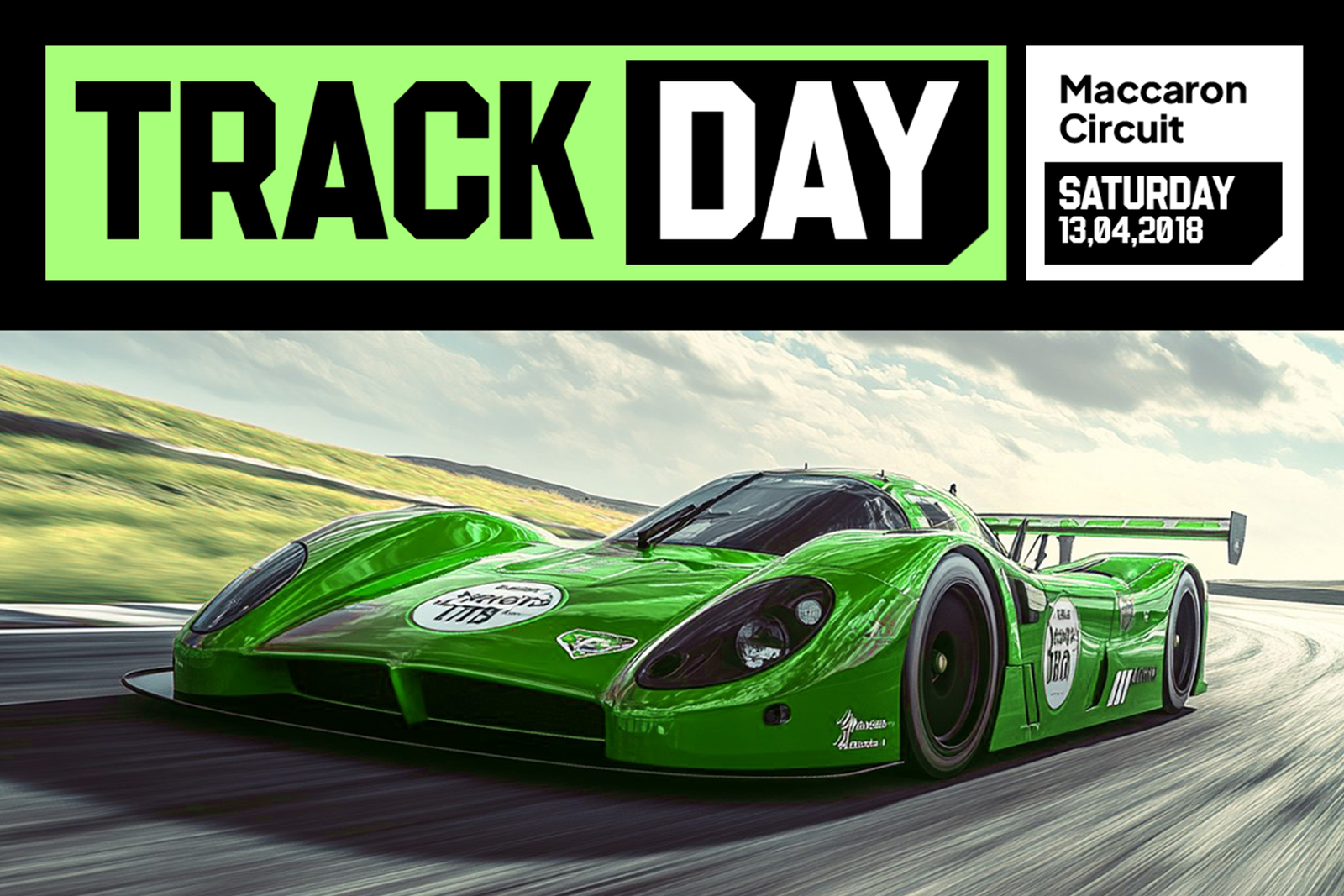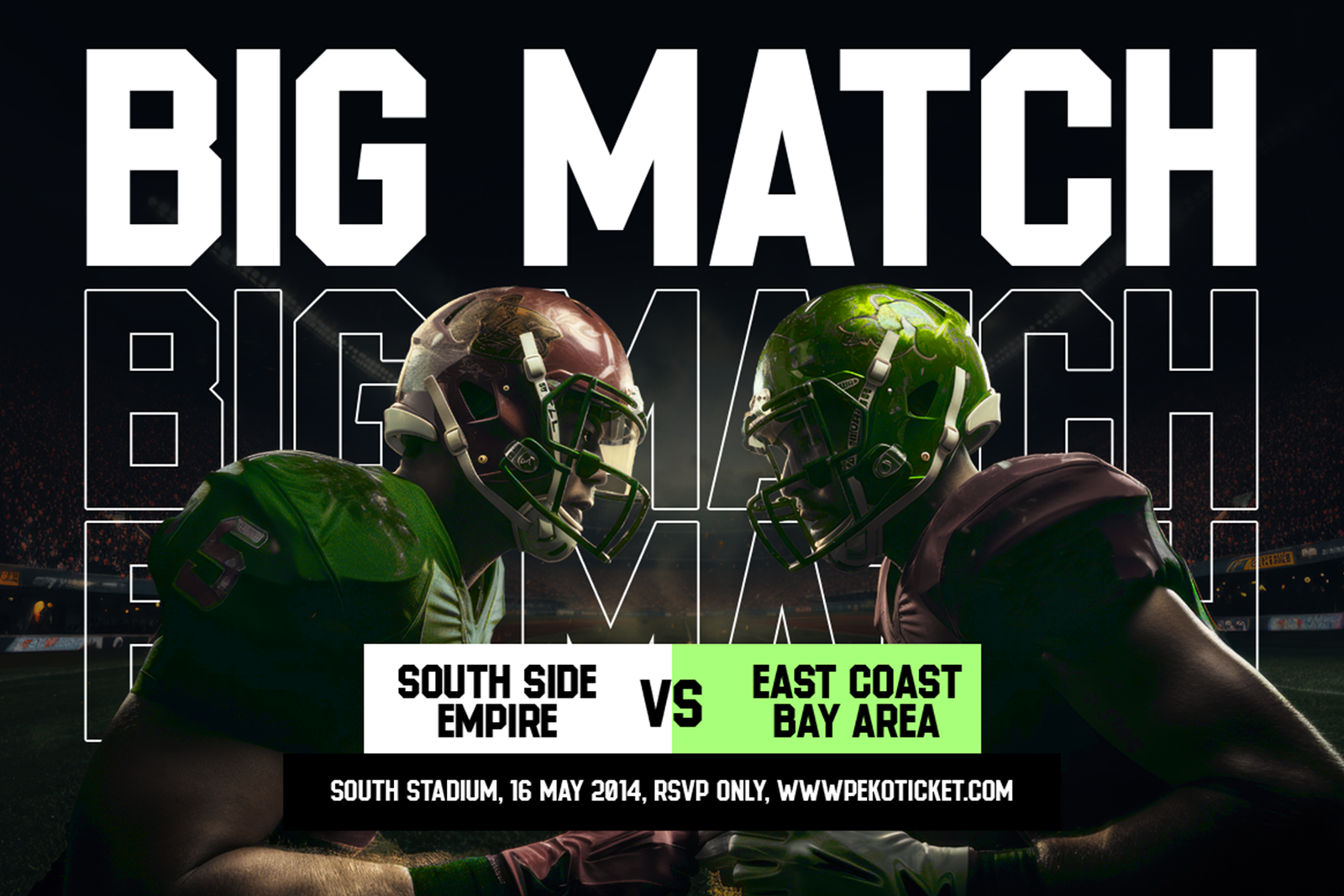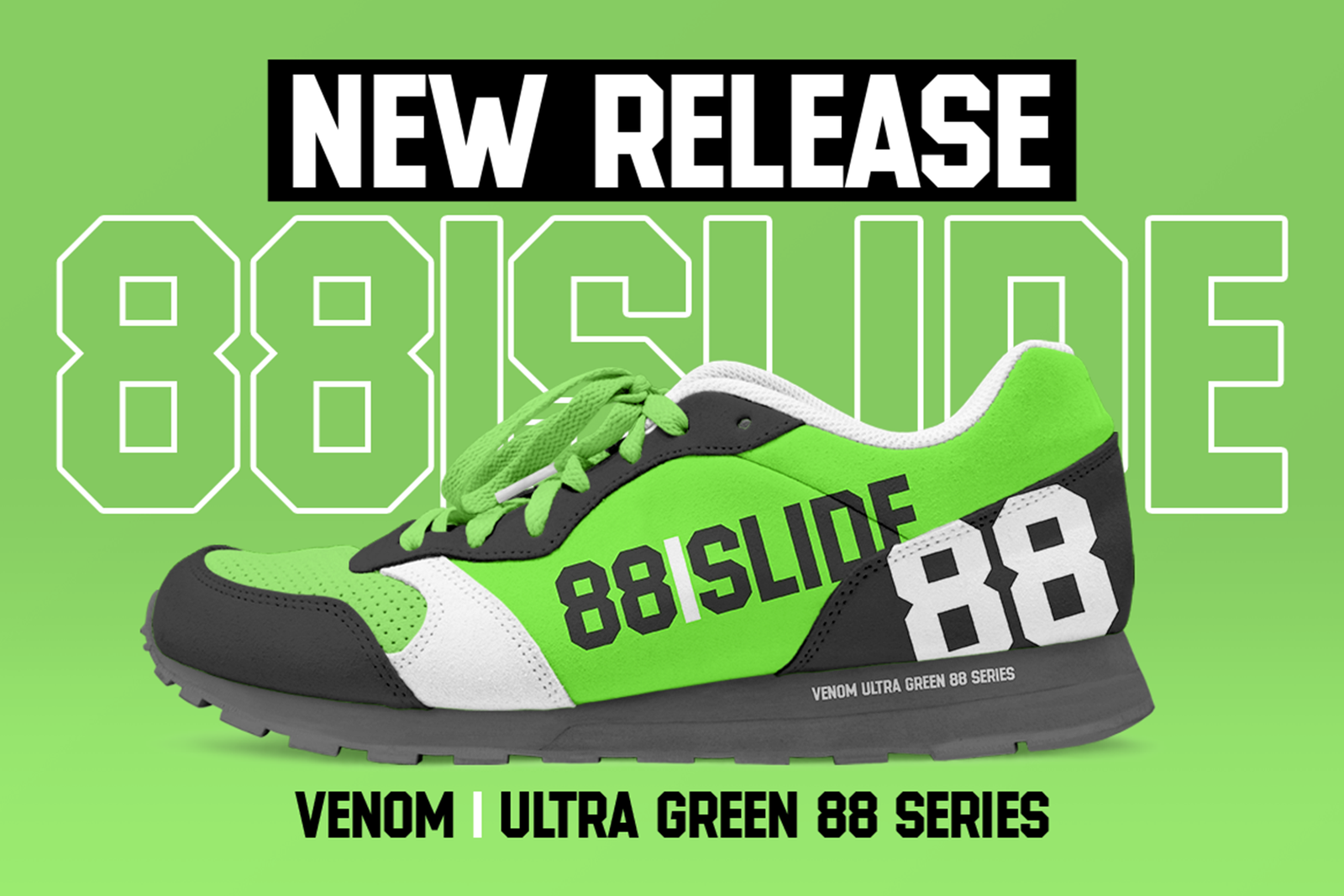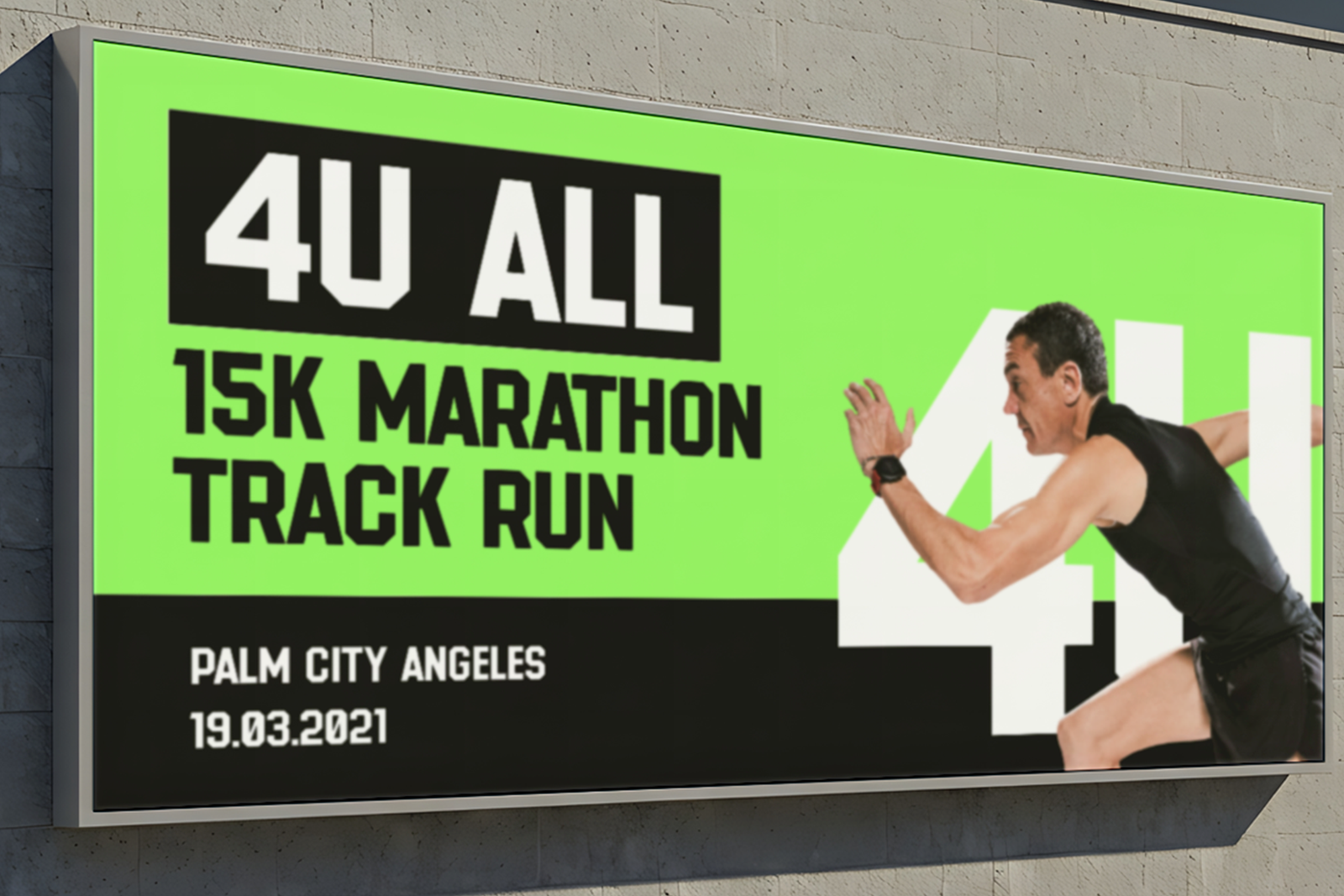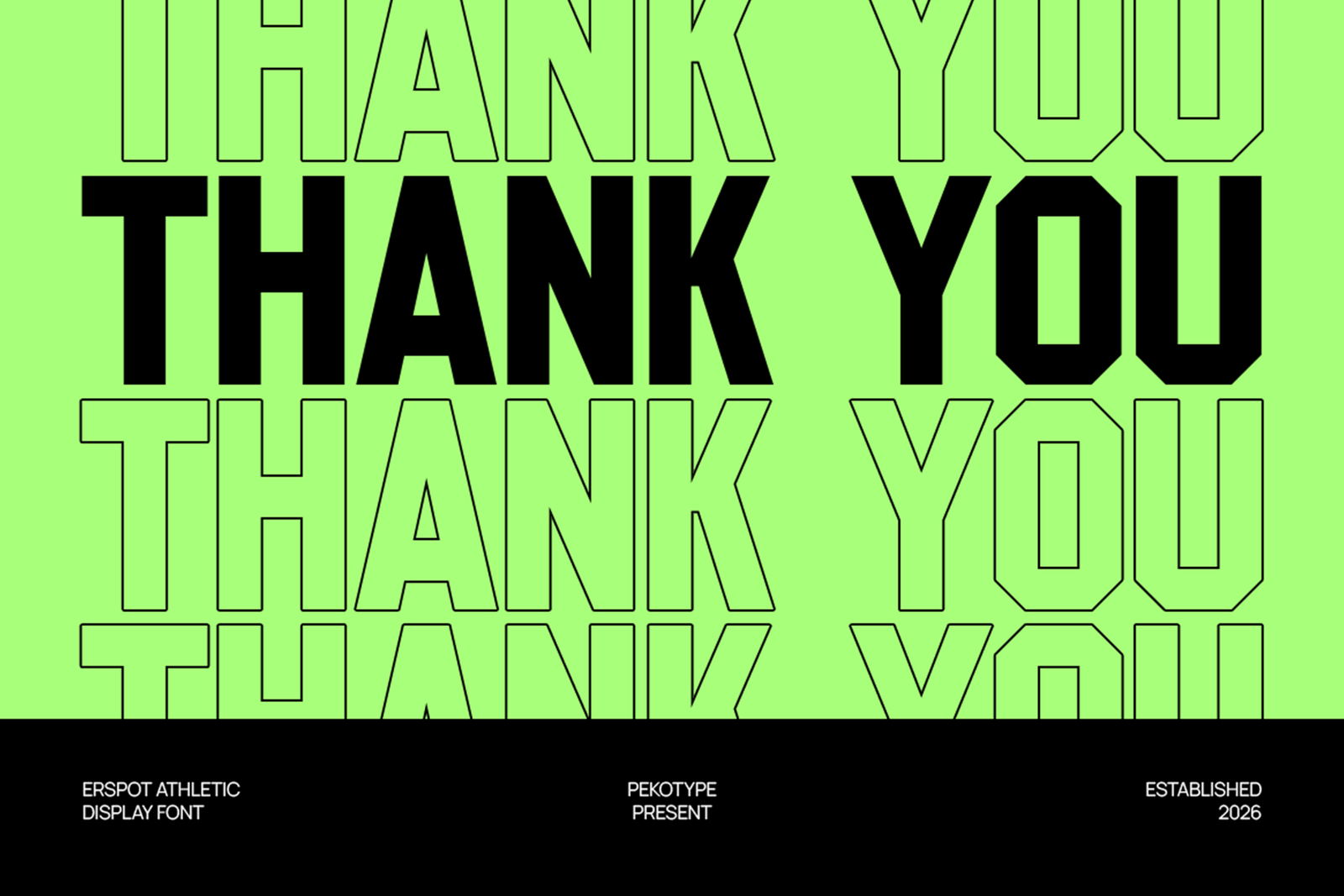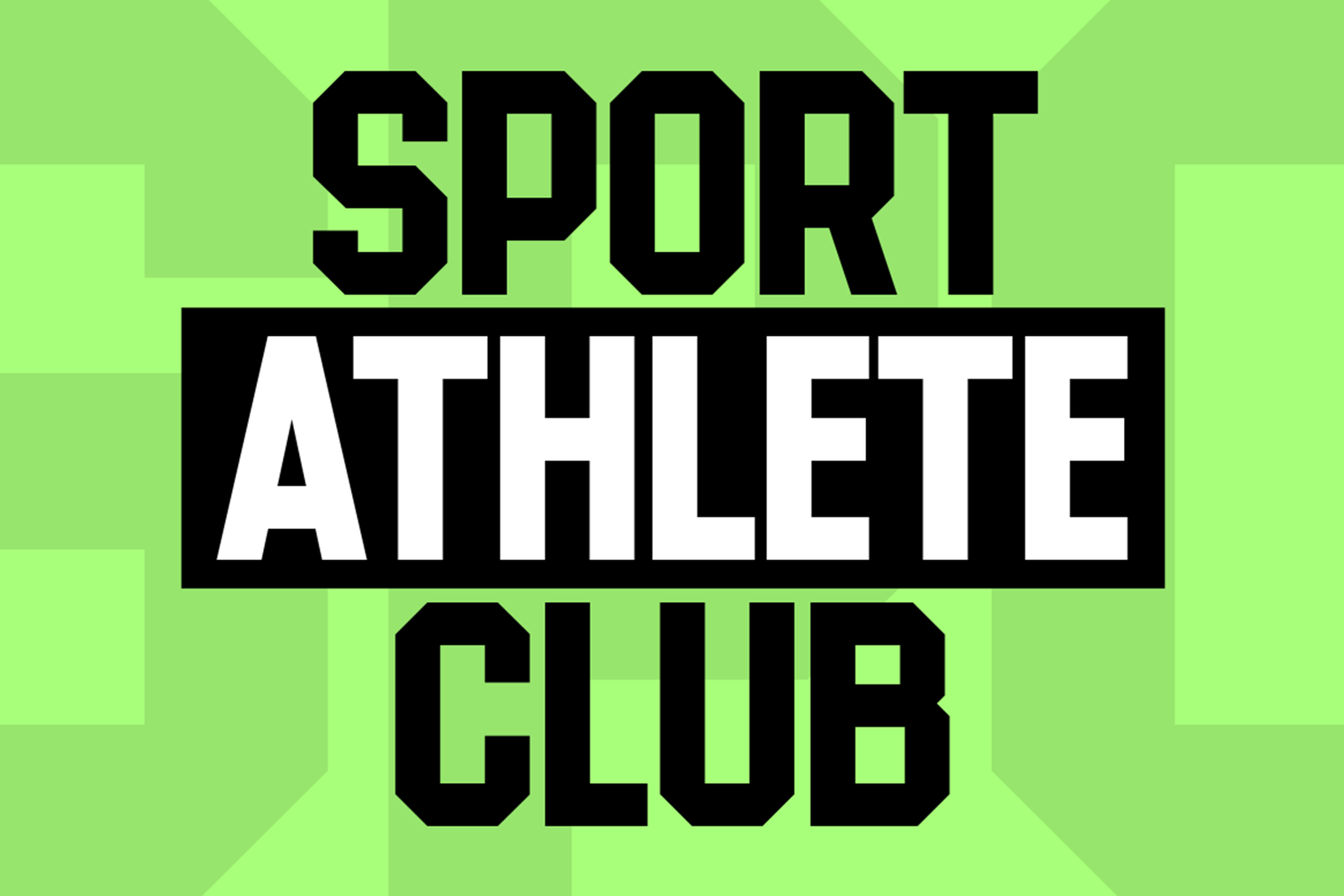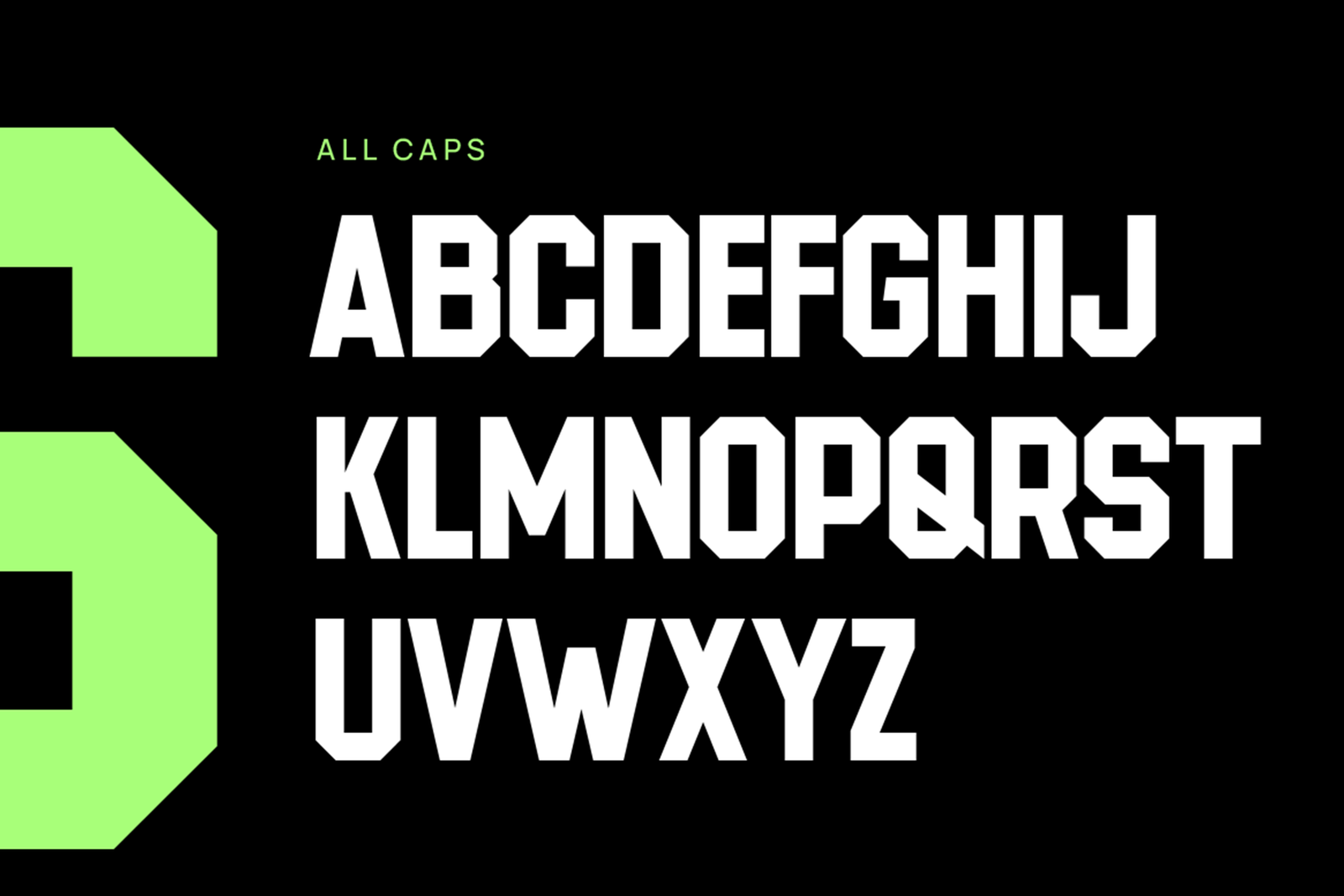
Erspot Font, a bold sport display font with strong geometric shapes and an energetic style. Perfect for sports branding, esports, racing designs, posters, logos, and modern creative projects.
ERSPOT Font is a bold sport display typeface created for powerful and energetic designs. Featuring strong geometric letterforms, sharp details, and a modern athletic style, this font brings a dynamic visual impact to every project. Its compact and sturdy appearance makes it perfect for creating bold headlines, team identities, and eye-catching graphics.
Designed with a sporty personality, this typeface works beautifully for sports branding, esports logos, racing graphics, jersey designs, event posters, advertisements, and modern product packaging. The strong character helps your text stand out while maintaining a clean and professional look. Whether you are creating visuals for a football club, fitness brand, automotive project, or competitive gaming theme, this display font adds a confident and powerful atmosphere.
ERSPOT Font comes with uppercase letters, numbers, symbols, punctuation, and multilingual support to provide flexible usage across different design applications. It is suitable for both digital and print projects, including social media content, merchandise, promotional materials, and creative campaigns.
With its bold appearance and contemporary style, this font is a great choice for designers who need a typeface that feels strong, modern, and full of energy. Create impactful designs with a unique athletic touch using this versatile display font.